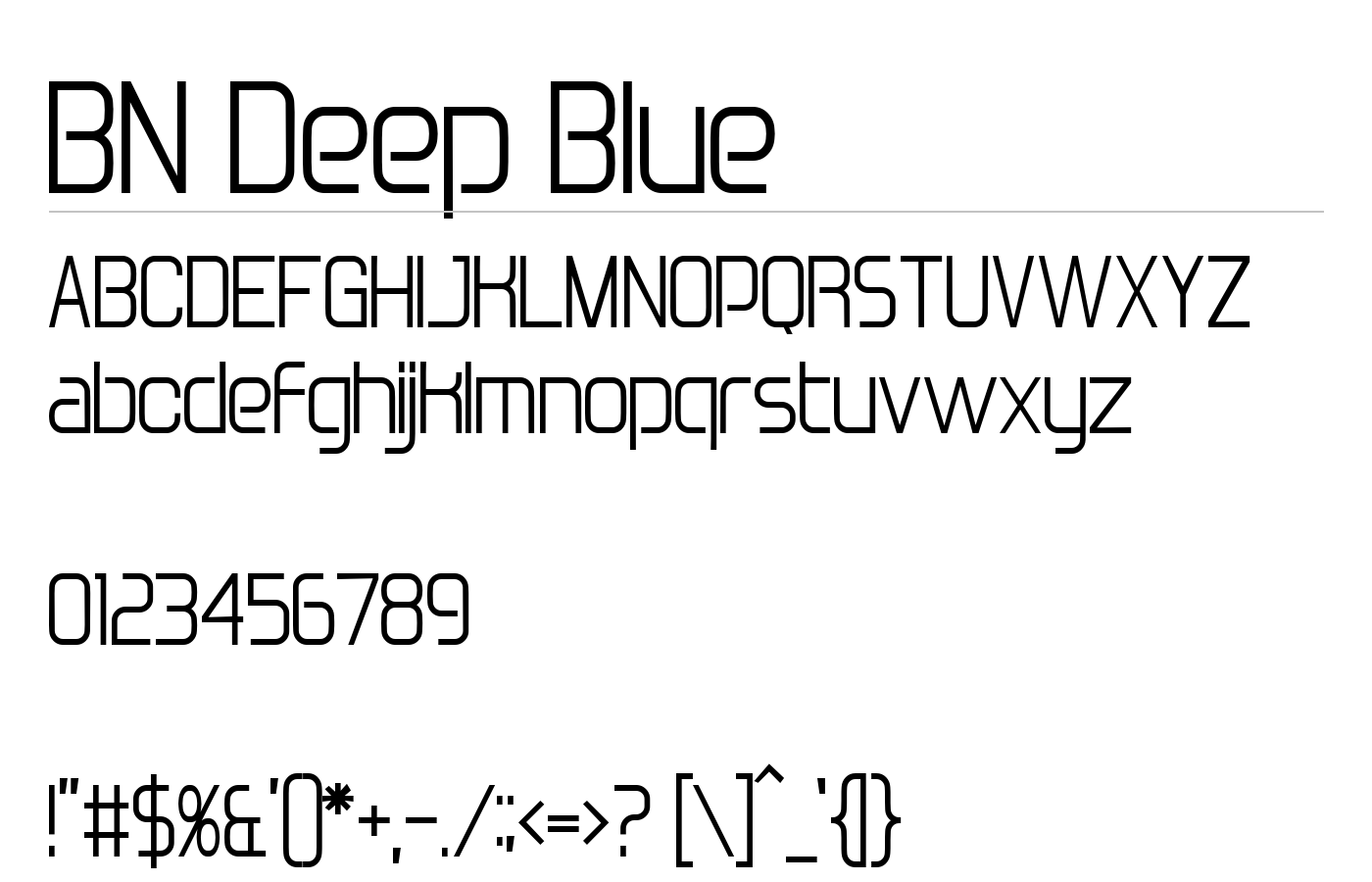
BN Deep Blue is a sleek, condensed sans serif font with a modern, geometric feel and a clean, minimalistic design. It features narrow letterforms with consistent stroke weight and a high x-height, making it highly legible and ideal for contemporary branding, headlines, and digital interfaces where a sharp, professional look is desired. This font works especially well for technology-related projects, editorial titles, and stylish logos that require a futuristic yet approachable style.
BN Deep Blue Font
About BN Deep Blue Font